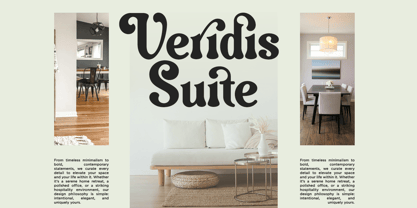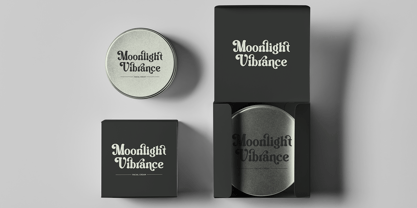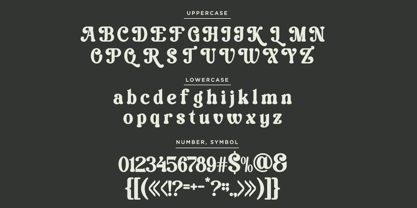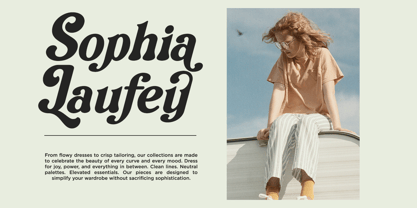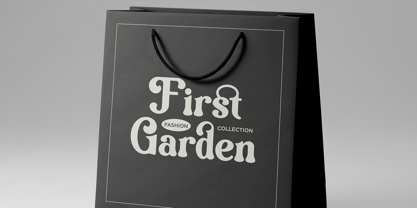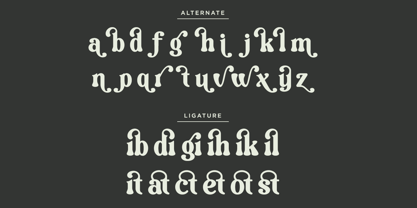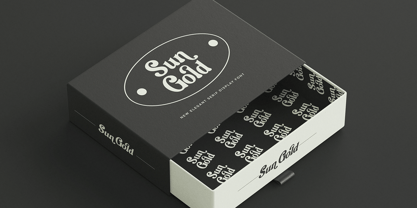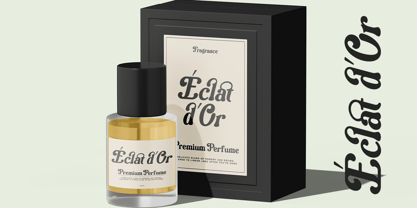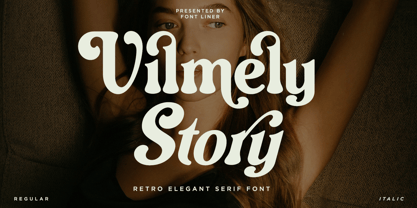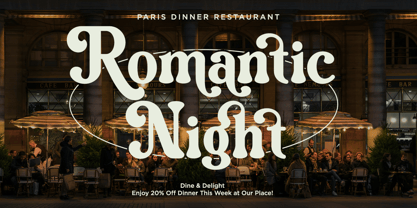
Vilmely Story
by Font Liner
The Vilmely Story Font Family was designed by Ghina Luthfiarieska and published by Font Liner. Vilmely Story contains 2 styles and family package options.
Vilmely Story is retro elegant serif font for elegant designs. Available in both Regular and Italic styles, this font is packed with stylish alternates and ligatures for endless creative possibilities. Whether for bold branding, editorial projects, or social media graphics, it delivers timeless charm and versatility. Its unique blend of retro aesthetics and modern sensibilities ensures standout typography for any project. It's perfect for logos, lettering artwork, t-shirt designs, editorial illustrations to name a few.
- Regular & Italic
- All Multilingual symbol
- Ligatures Character
- Stylistic Alternates